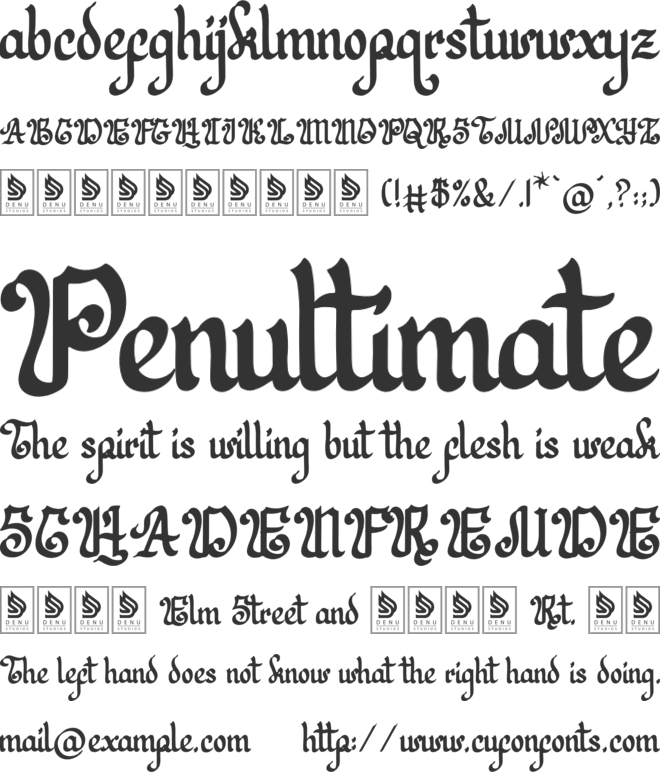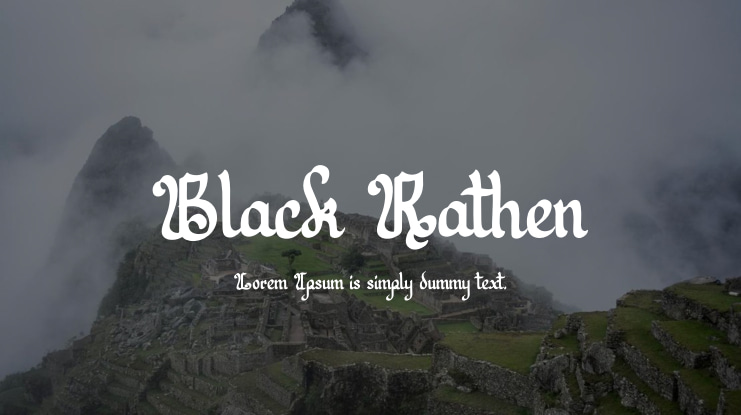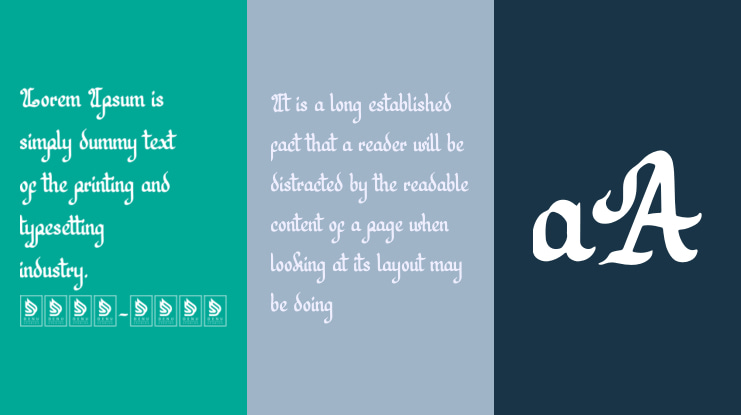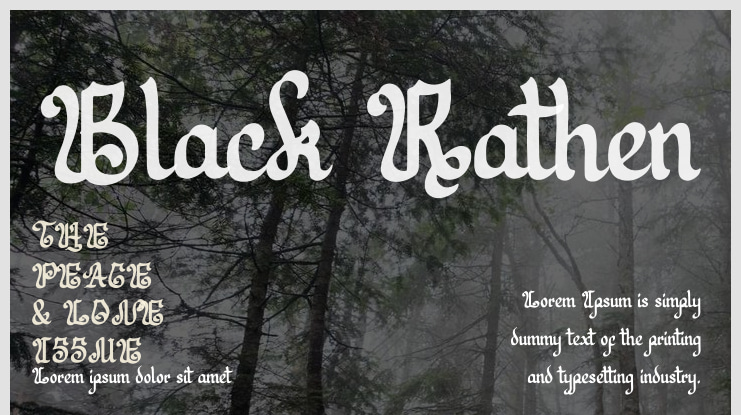
Black Rathen Font
Black Rathen | Blackletter Typeface
Black Rathen | Blackletter Typeface is perfect for various projects such as: logos, branding, homeware designs, product packaging, mugs, quotes, posters, shopping bags, t-shirts, book covers, name cards, invitation cards, greeting cards, labels, photography, watermarks, special events, and any other creative projects that require a Blackletter touch.